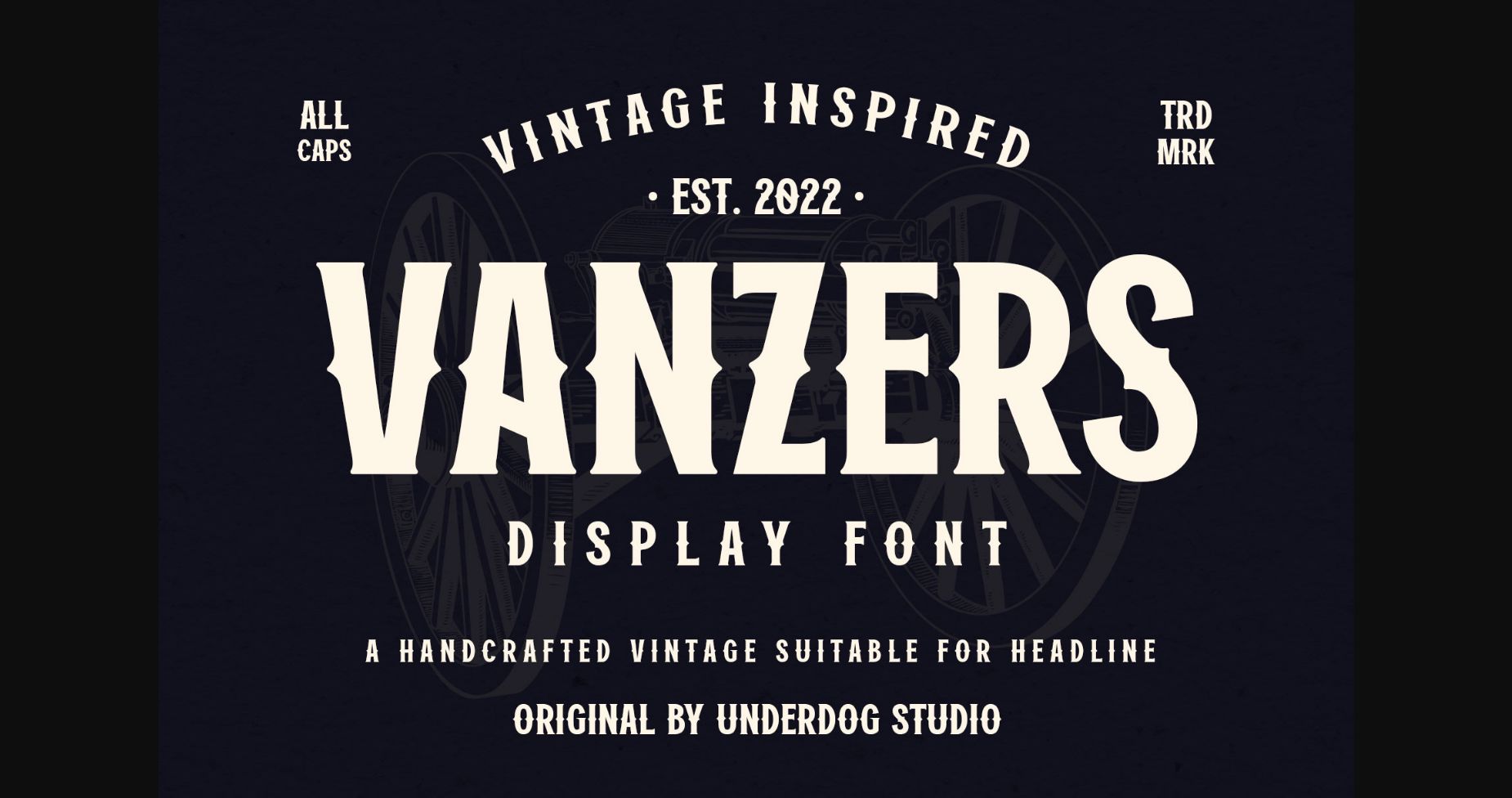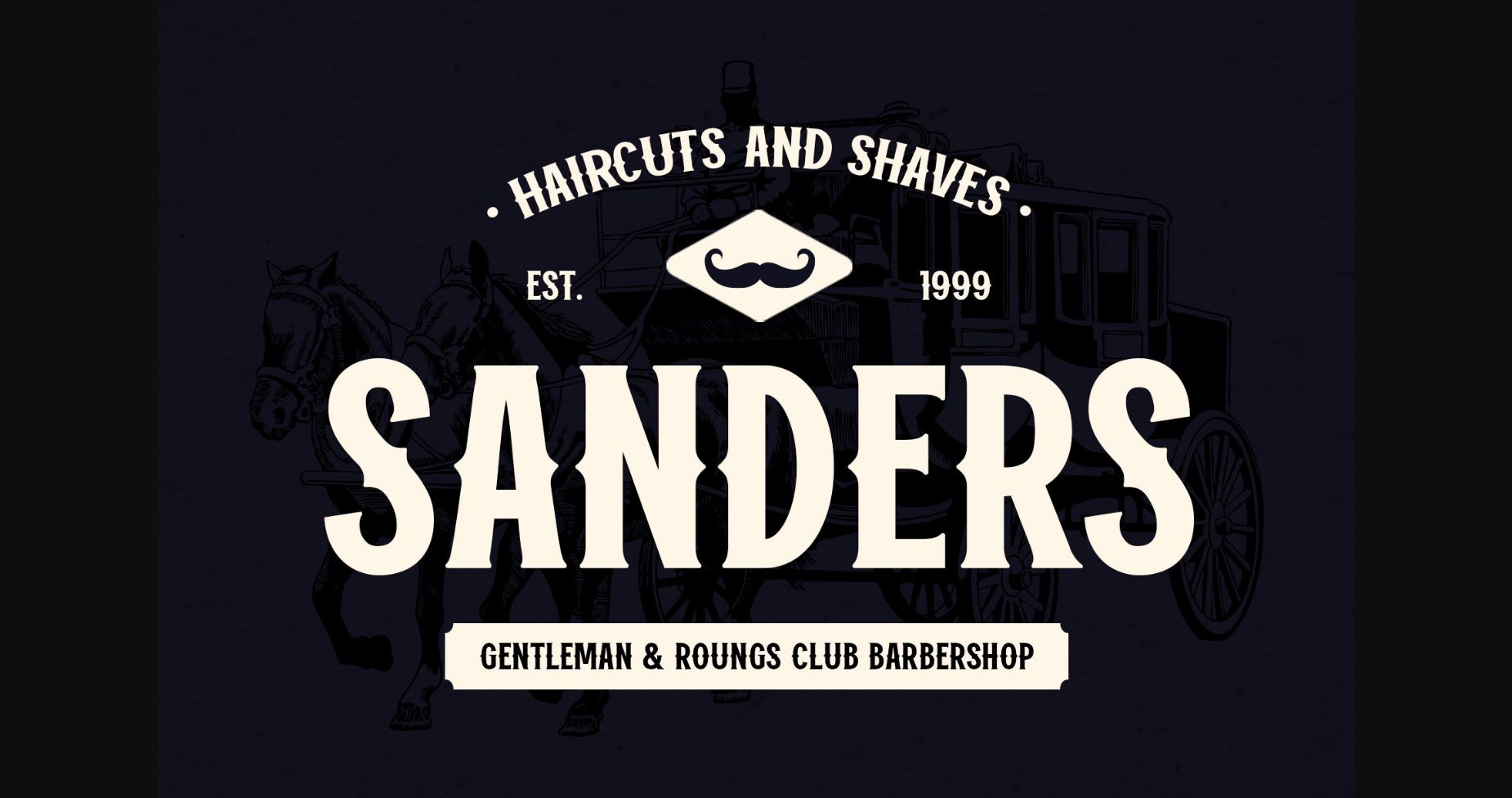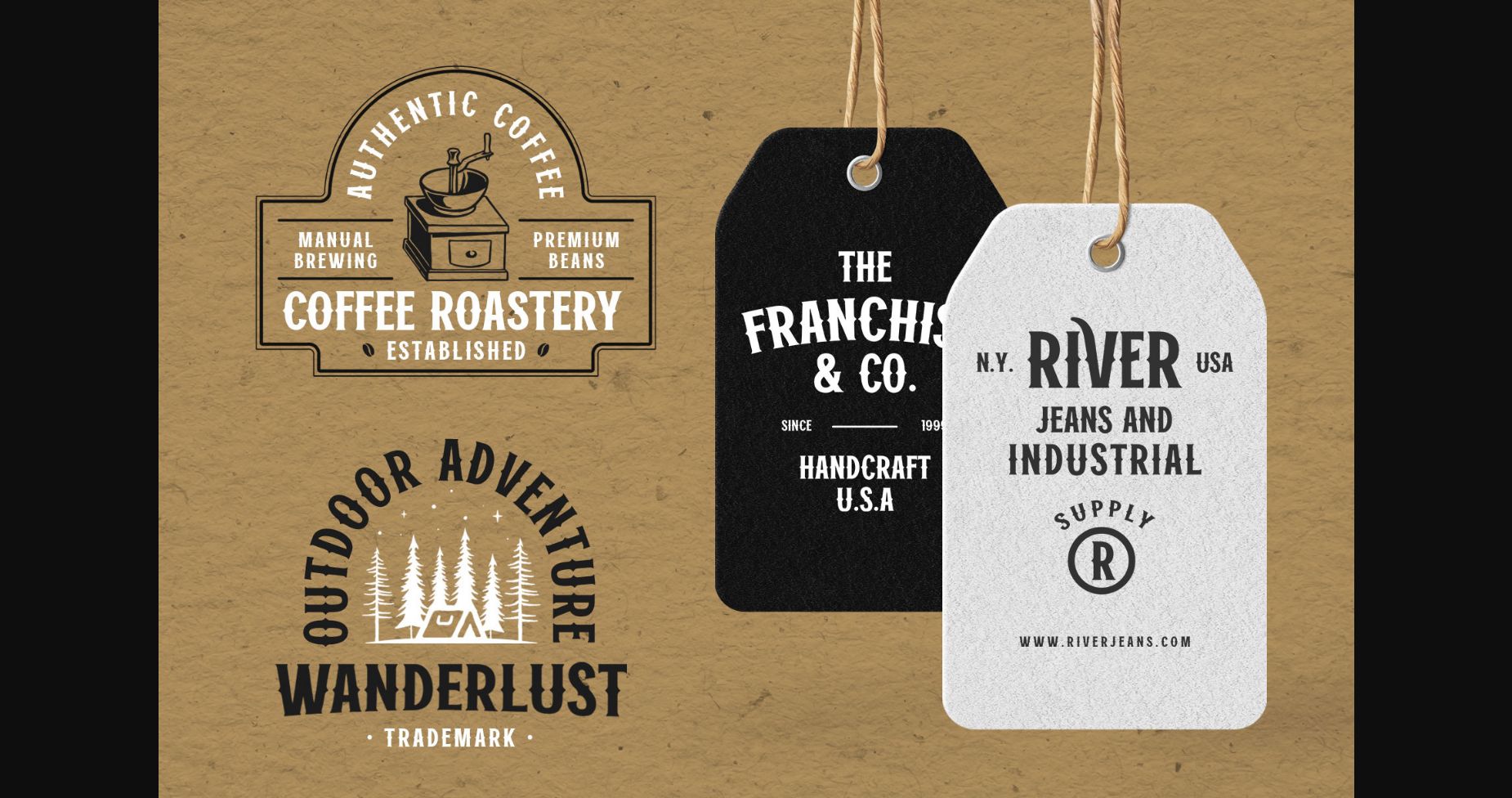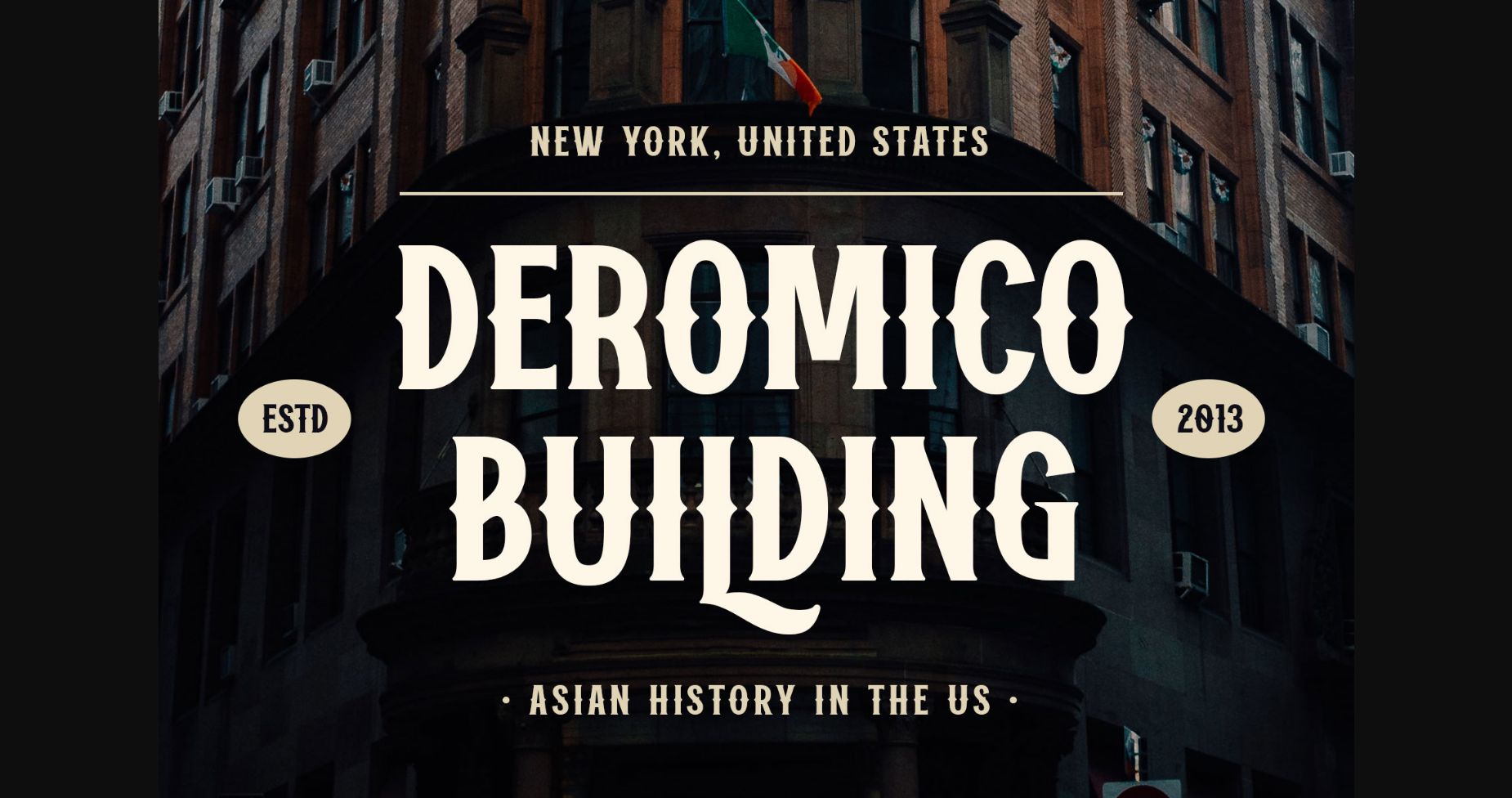
About Vanzers Font
Vanzers is strong sans serif font with spurs added in the middle of letters to give a confident and manly looks. It is suitable for headline, label, logos, storefront, branding, billboard and more. Included with special characters. and multilingual support.